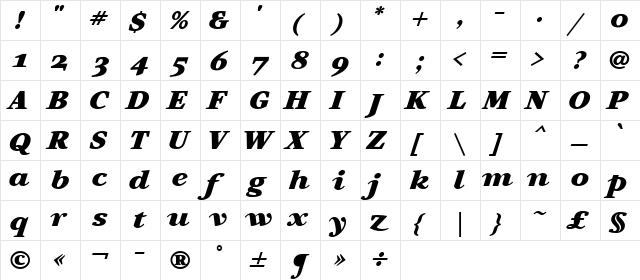
Artemius SN Black TT Regular Italic
Design Context for Artemius SN Black TT Typeface
Artemius SN Black TT is a composed and adaptable typeface that performs quietly and consistently across a wide range of design contexts. Its italic angle brings a sense of urgency and motion to the letterforms.
Pro Tip: Use Artemius SN Black TT for emphasis, pull quotes, and subheadings where its slanted energy can add rhythm to the layout.